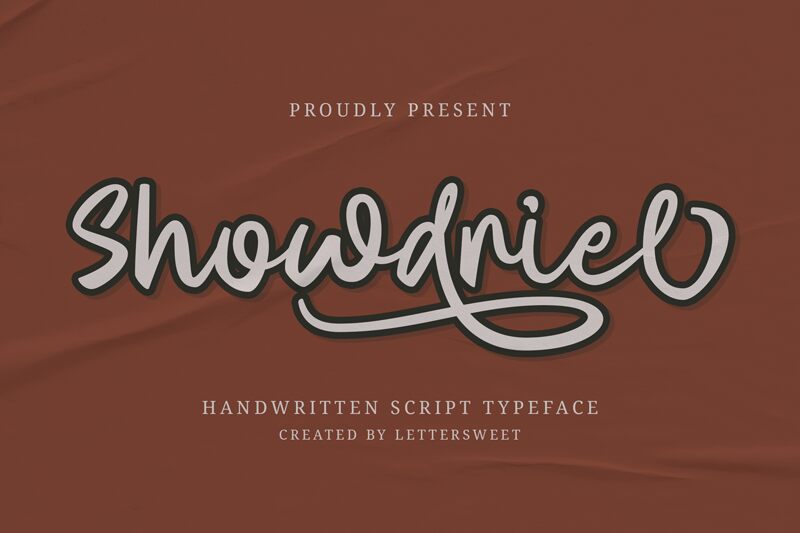
Showdriel-Regular
Showdriel, crafted by the innovative Lettersweet Studio, encapsulates the charm and intimacy of handwritten text with a stylish twist. This font exudes a fluid and cohesive aesthetic that stands out in both digital and print formats. Its elegant curves and varying stroke weights evoke a sense of bespoke craftsmanship, making it an excellent choice for projects that require a personal touch.
The appeal of Showdriel lies in its versatility; it possesses the unique ability to add character to wedding invitations, branding materials, social media graphics, and more. The handwritten style lends authenticity and warmth to any design, inviting viewers into a world where artistry meets accessibility.
Whether you're looking to create an eye-catching logo or embellish your blog posts with artistic flair, Showdriel strikes the perfect balance between sophistication and playfulness. Embrace this font's potential to elevate your creative endeavors with its distinctively human feel.